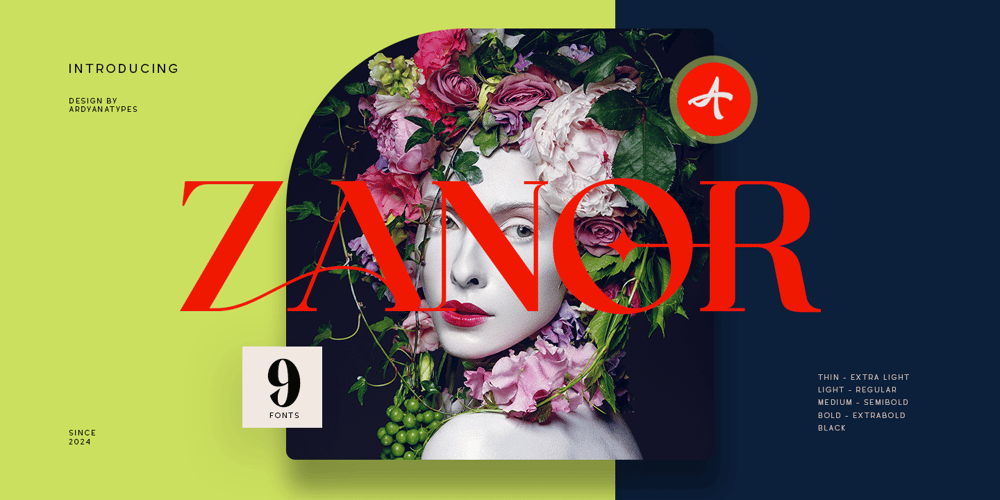
The Zanor Font Family was designed by Ardyana Putra and published by Ardyanatypes. The Zanor contains 9 styles and family package options. Zanor is a serif font designed with modern elegance to meet the aesthetic needs of contemporary design. With nine thickness levels varying from ‘Thin’ to ‘Black,’ Zanor offers exceptional design flexibility, enabling the creation of text that is not only functional but also visually appealing.Designed with high precision, Zanor provides optimal reading comfort, making it very suitable for use in body text in documents or publications. Its distinctive and proportional letter shape makes Zanor the right choice for book titles, film titles, posters, business cards and websites, highlighting the strong and charming character of the text.The comprehensive OpenType features enrich Zanor with various alternative letter styles, ligatures, and other typographic capabilities that not only enrich design options but also significantly enhance the visual appeal of the text. This capability allows designers to explore their creative expression, enabling more effective and engaging visual communication.Additionally, Zanor supports multilingual use, ensuring that your designs can be appreciated globally without limitations. Whether in professional applications or creative projects, Zanor is a font that meets both functional and aesthetic needs, supporting the creation of rich and dynamic designs on the global stage.Use Zanor to bring a new dimension to your typography projects. Elegance and modernity meet to produce communications that read and feel.A guide to accessing all alternatives can be read at http://adobe.ly/1m1fn4Y Adobe Photoshop go to Window – glyphs Adobe Illustrator go to Type – glyphs Features: A – Z Character Set a – z Characters set Numerals & Punctuations Ligatures & Alternates Multilingual